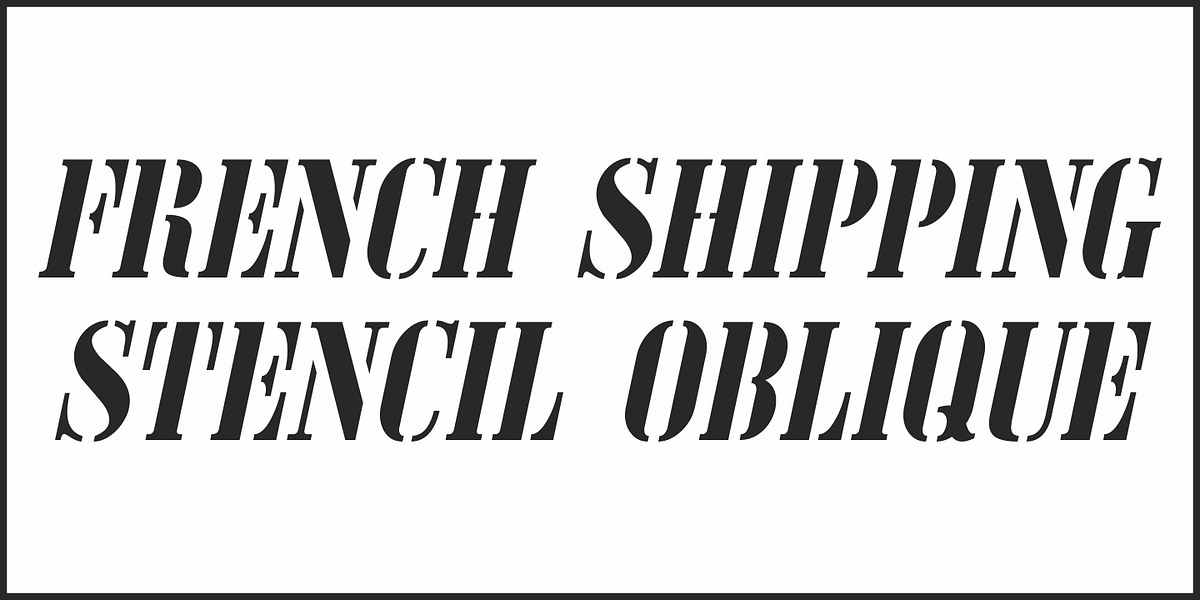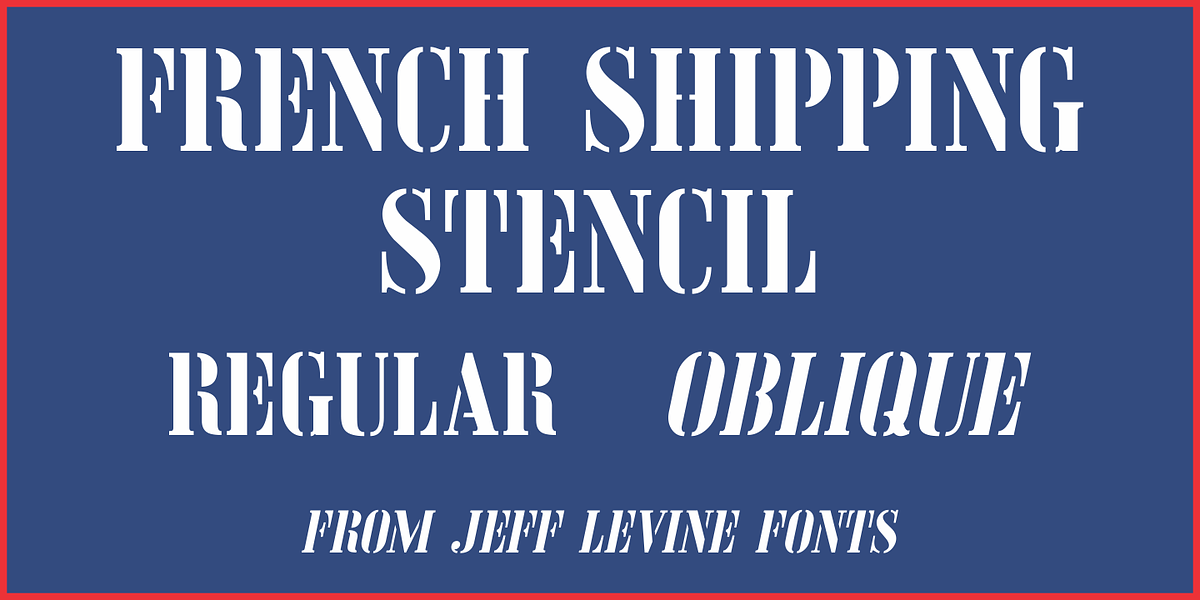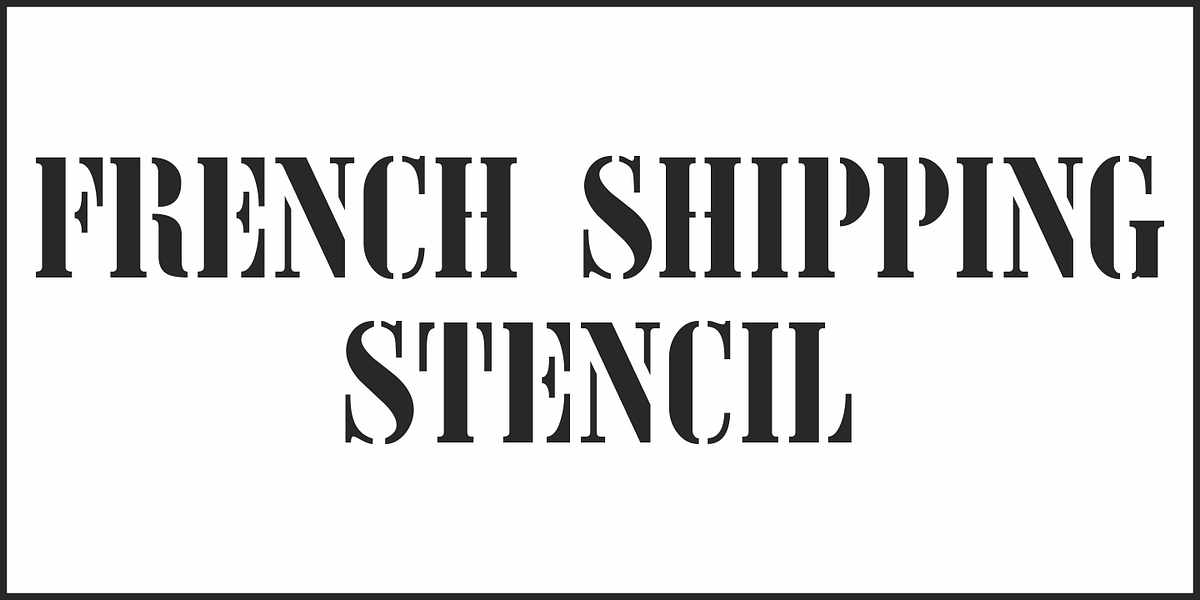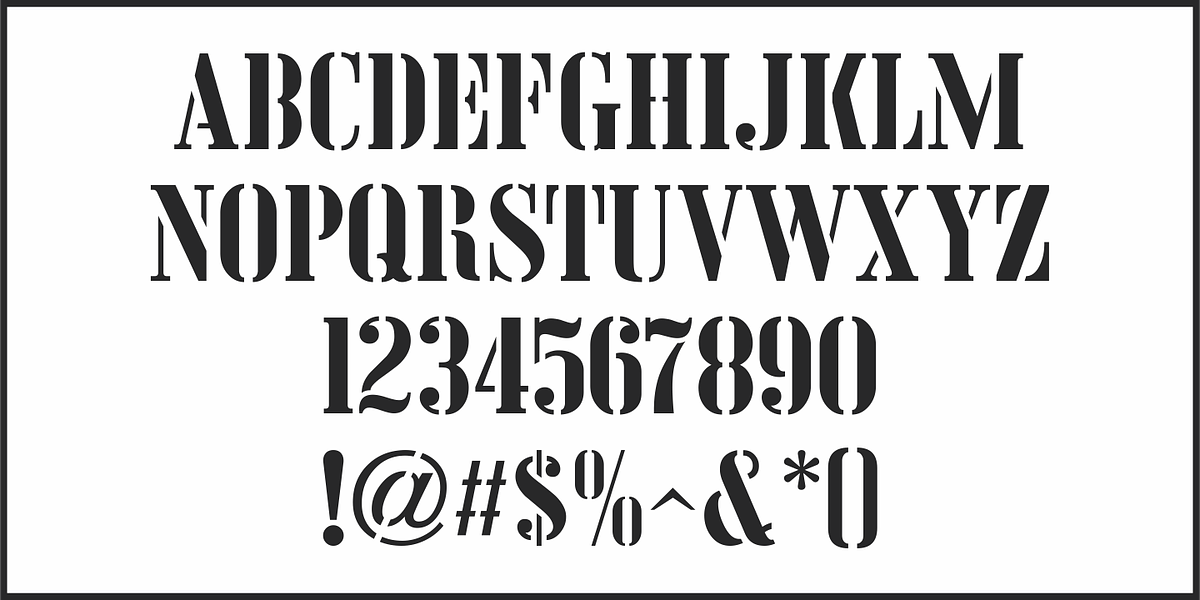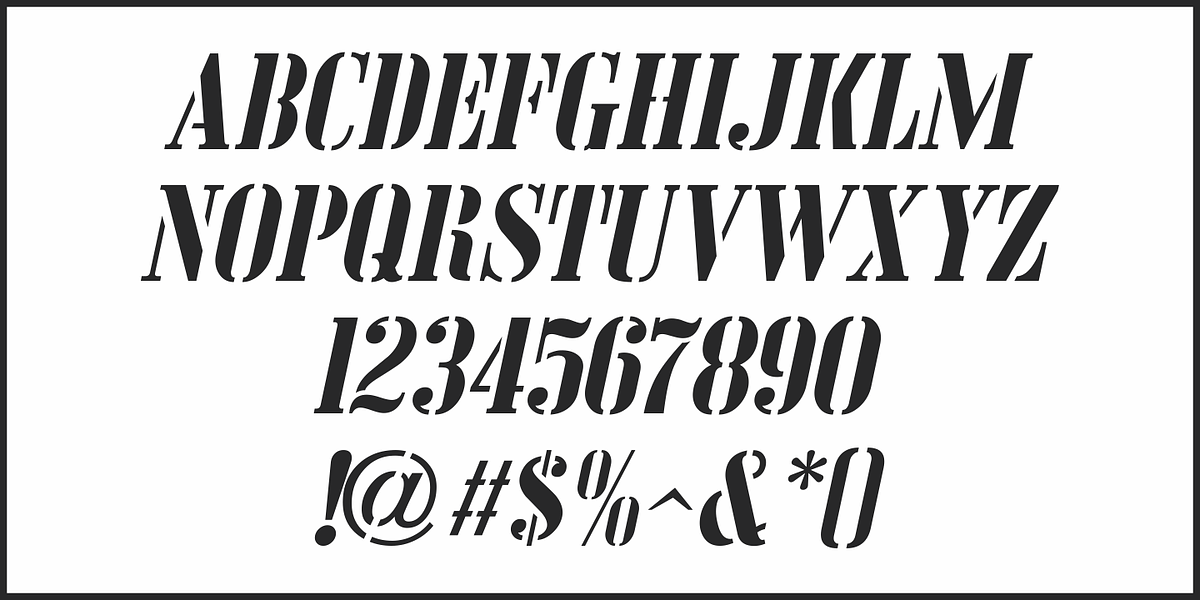
French Shipping Stencil JNL
The hand punched lettering of an antique French shipping stencil was the inspiration for French Shipping Stencil JNL; available in both regular and oblique versions.